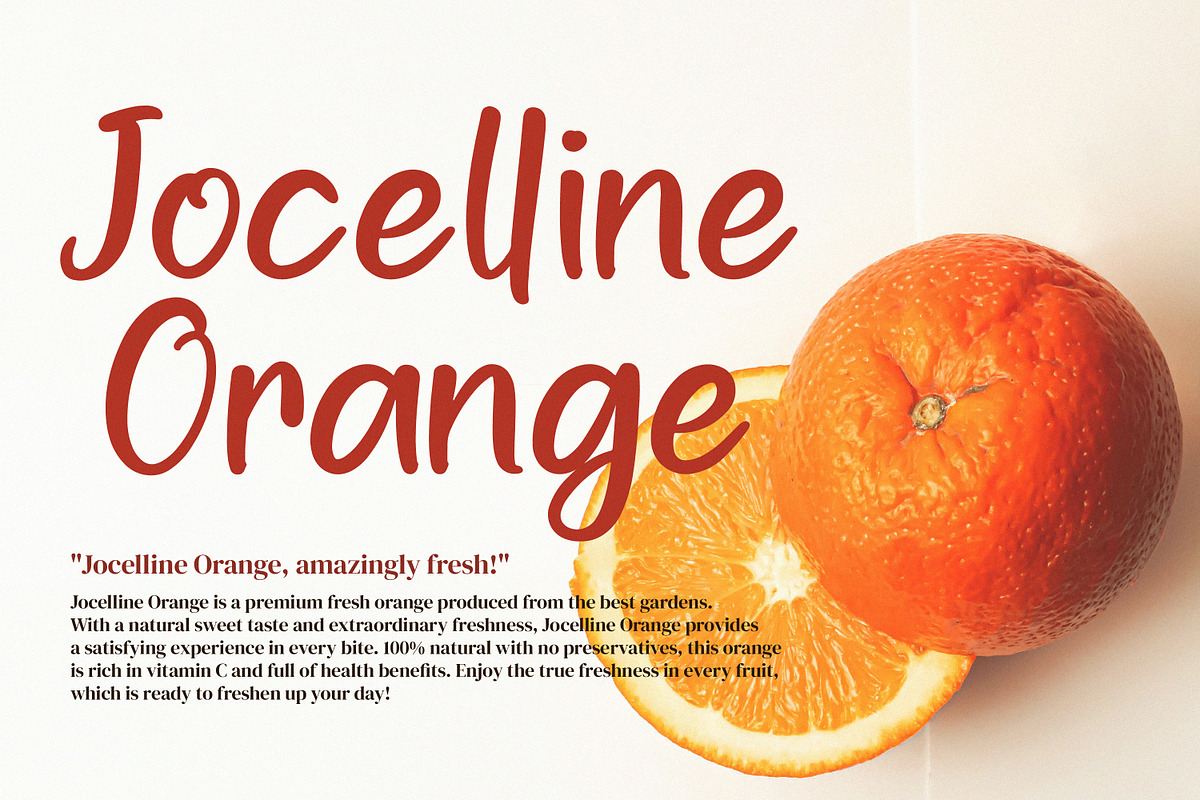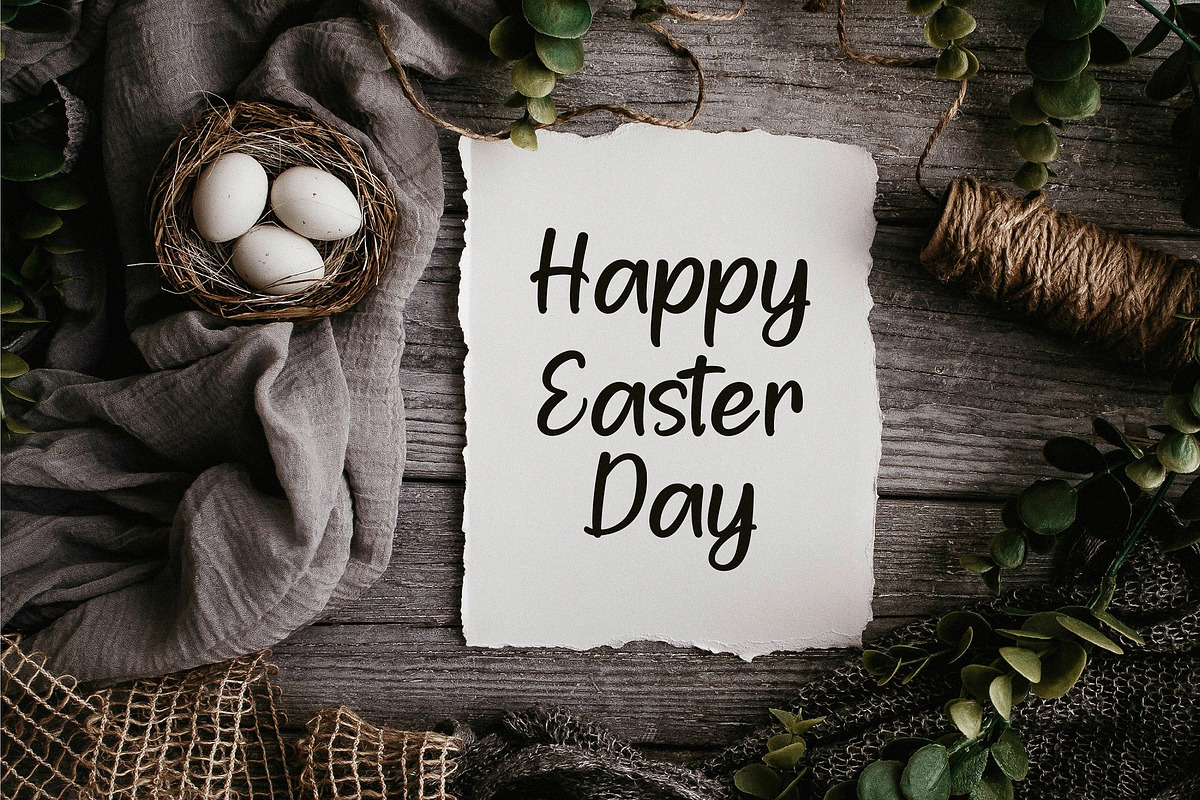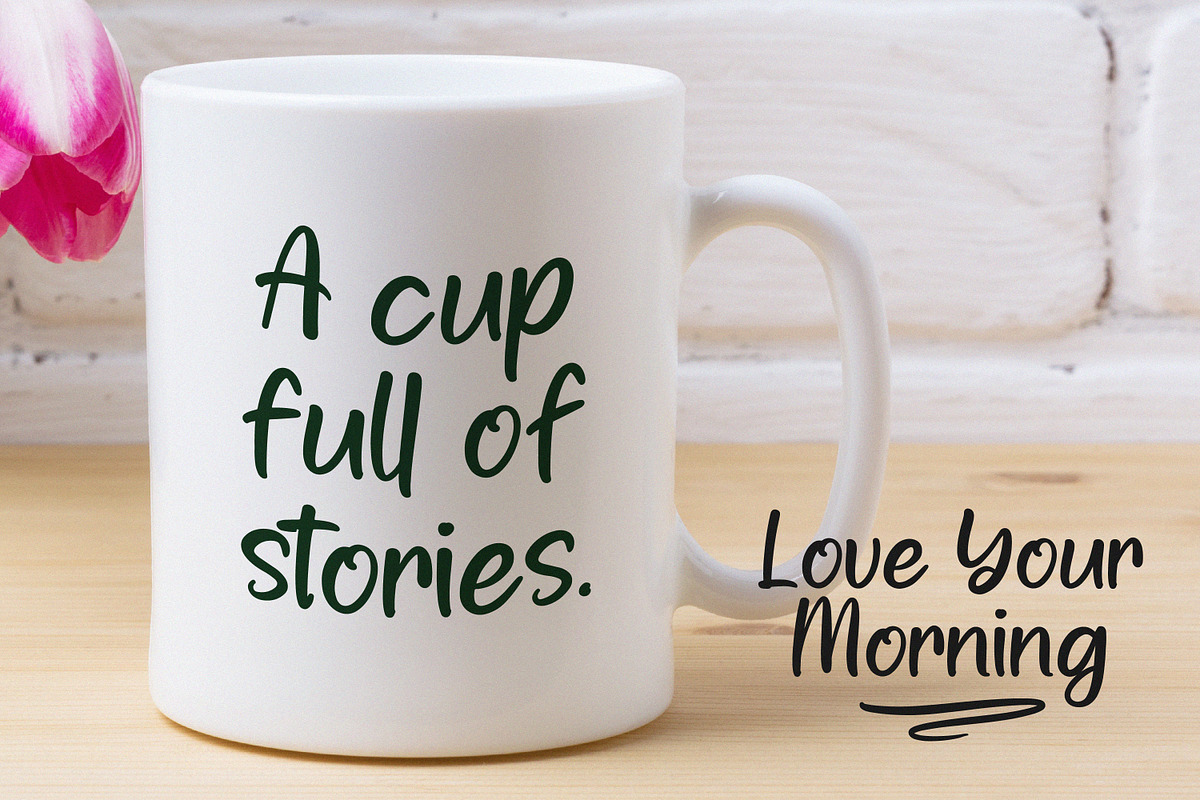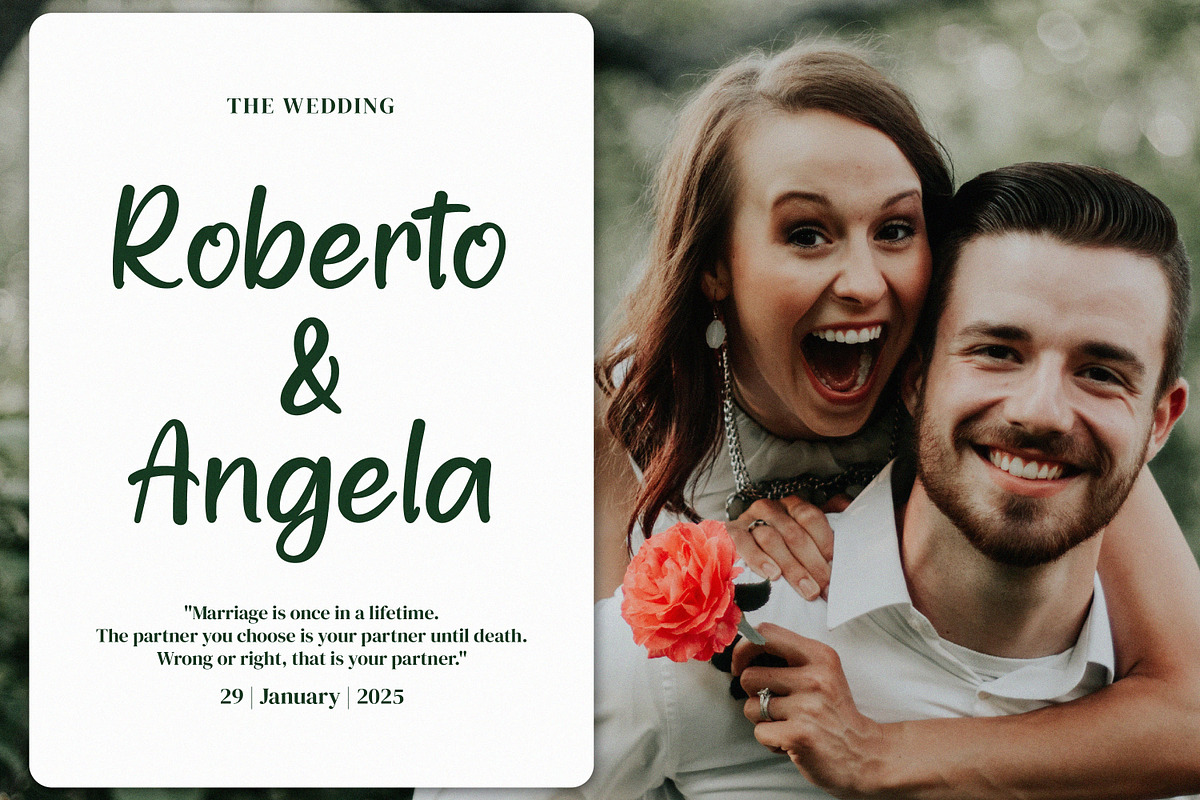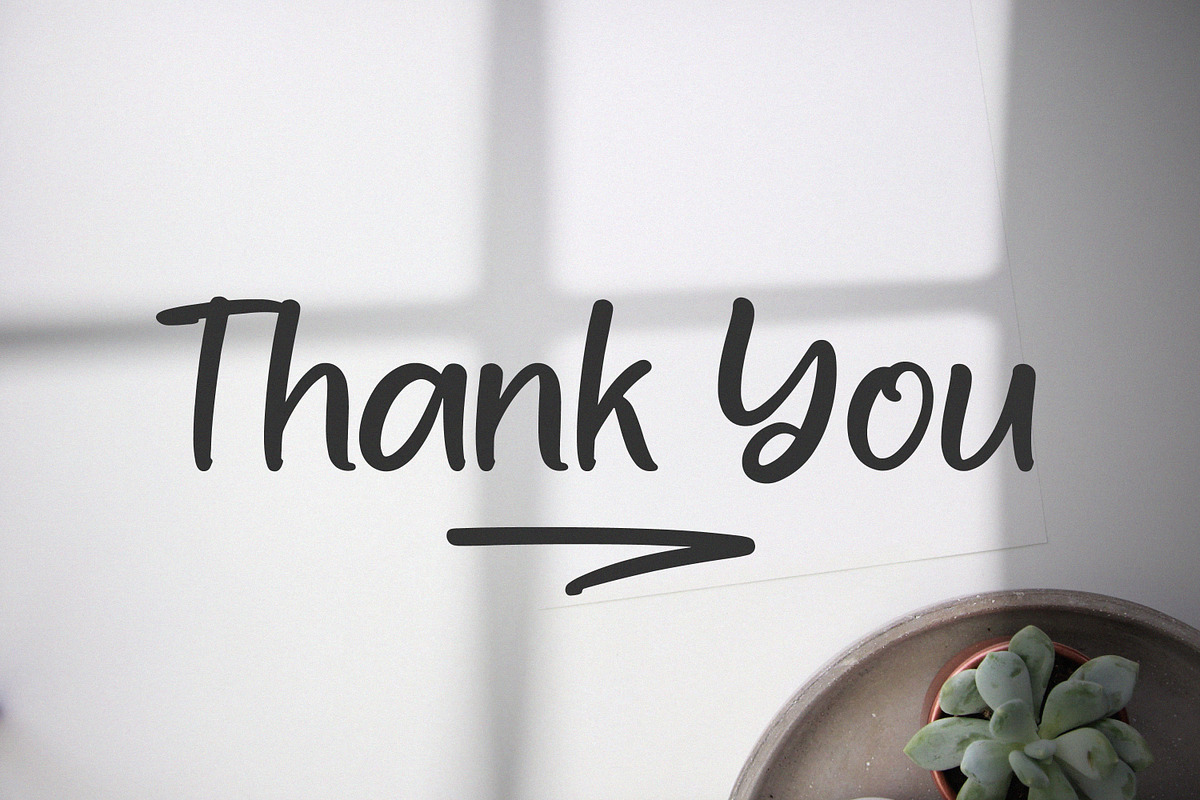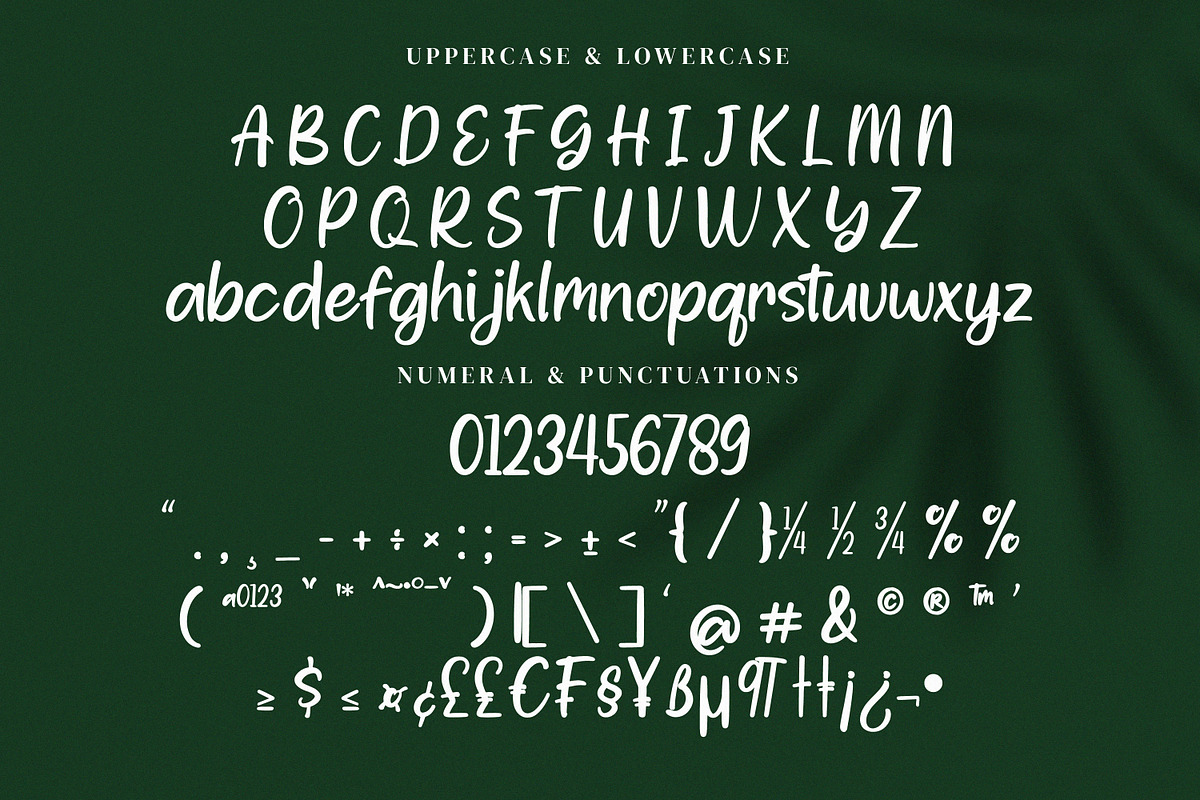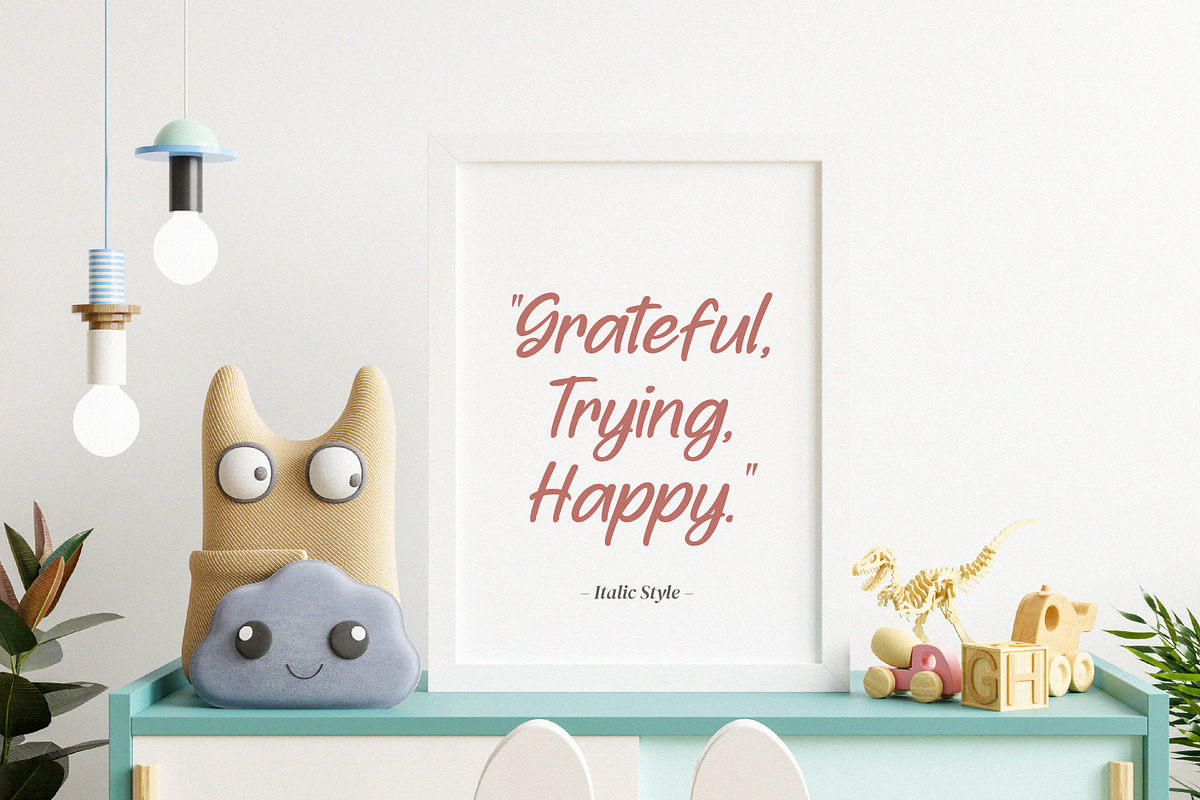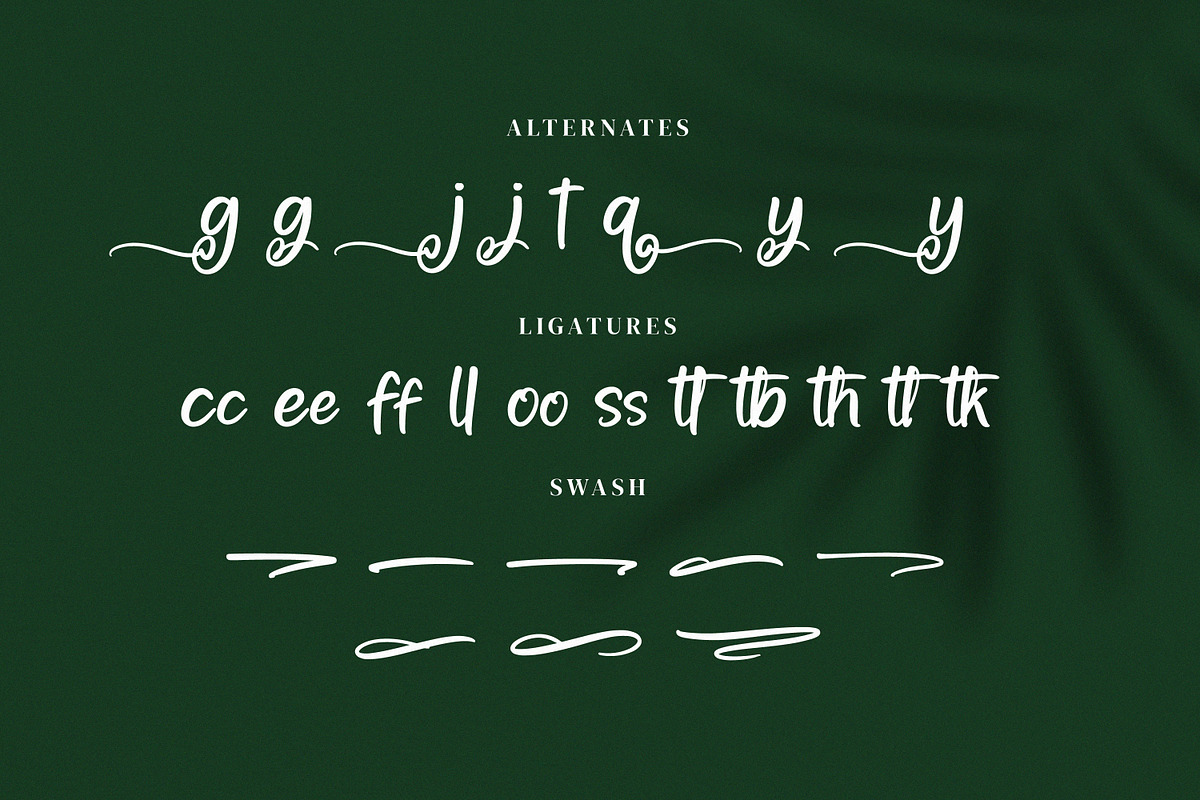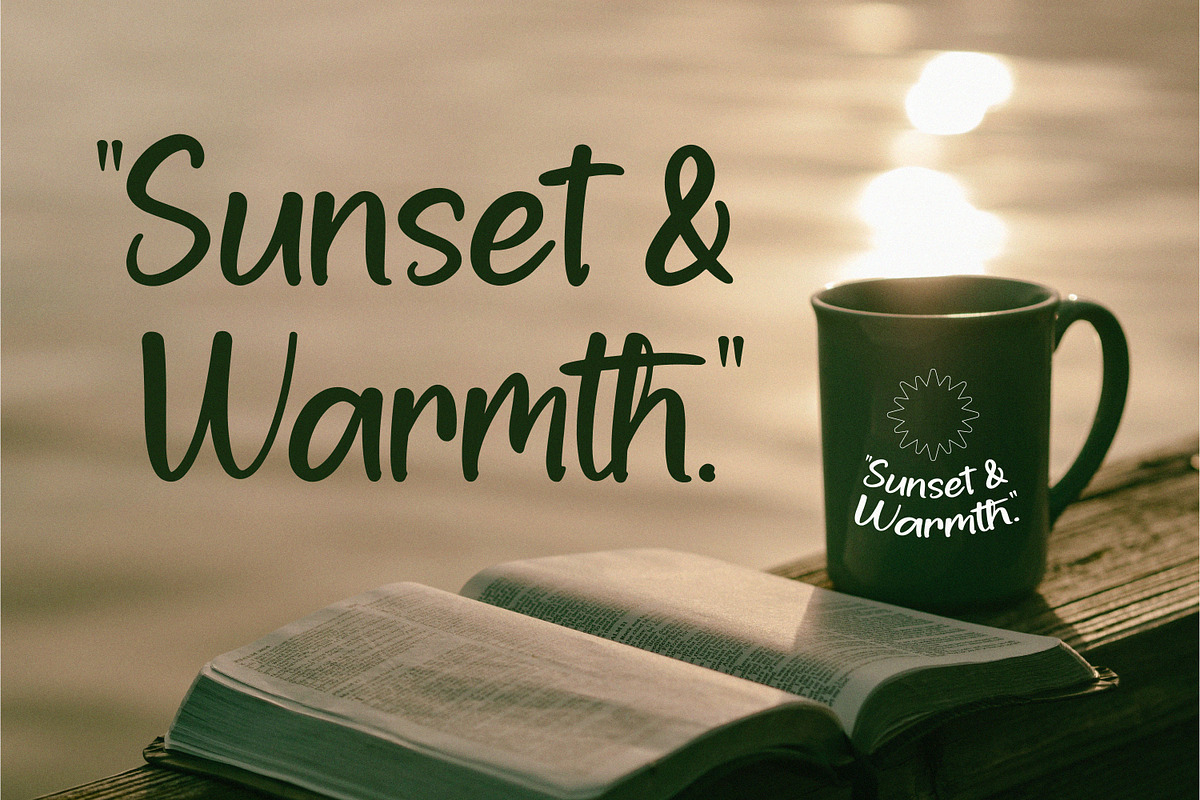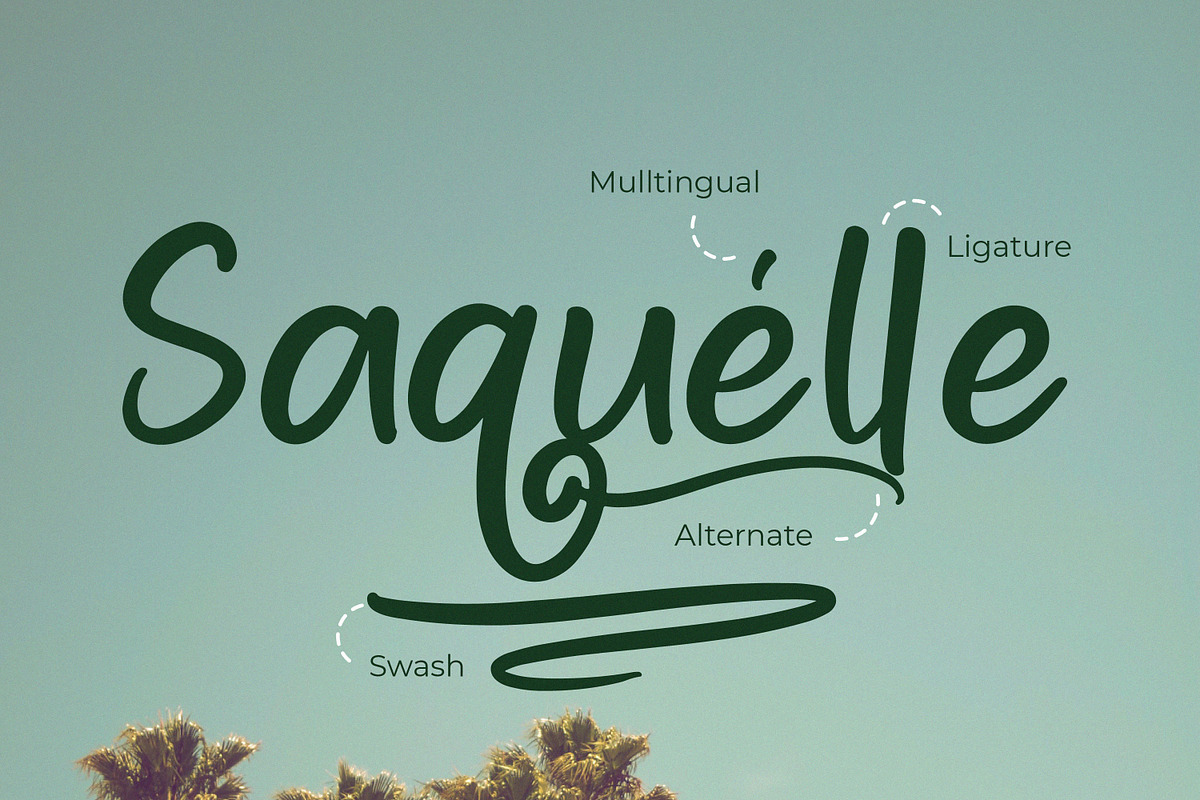
Wastelly Oteeqa
Wastelly Oteeqa – A Handwritten Script Font, from Goresan Studio, suitable for any projects such as: logos, branding projects, homeware designs, product packaging, mugs, quotes, posters, shopping bags, t-shirts, book covers, name card, invitation cards, greeting cards, label, photography, watermark, special events, and all your other lovely projects that need a beautiful script taste.
- Alternate, Ligature and Swash
- Fonts include multilingual support.